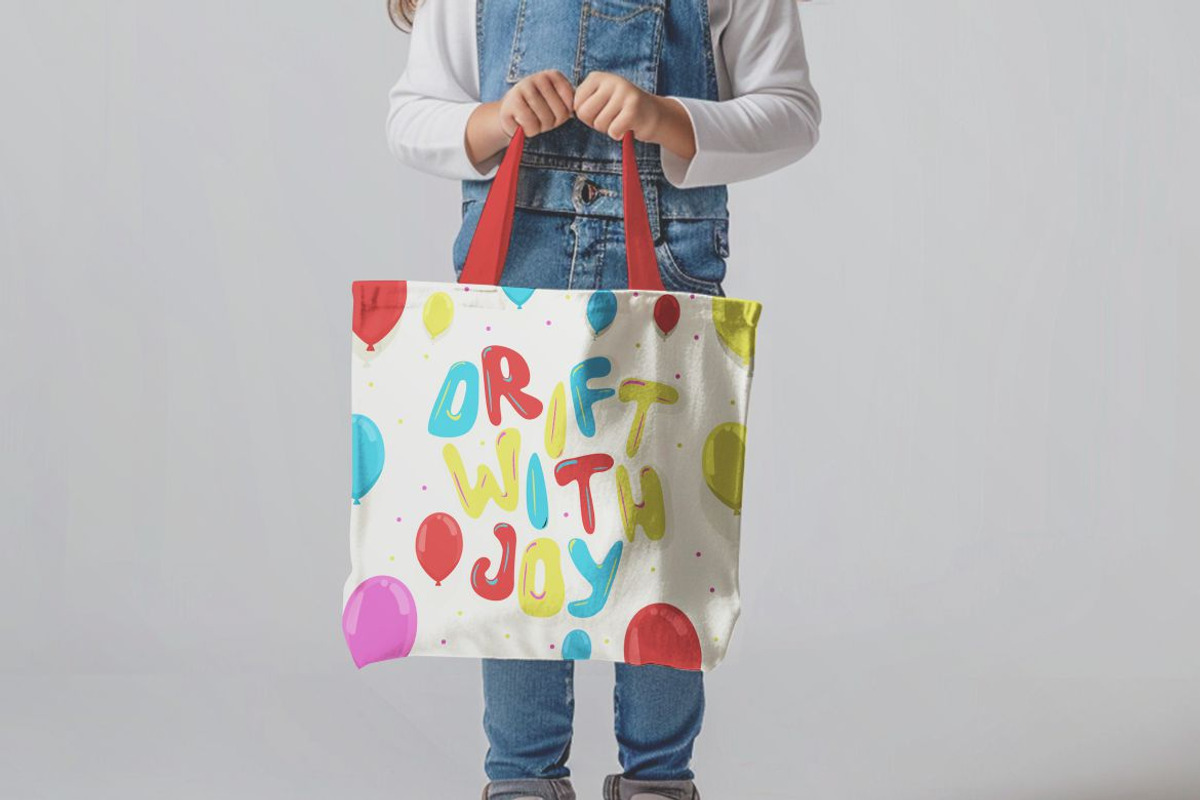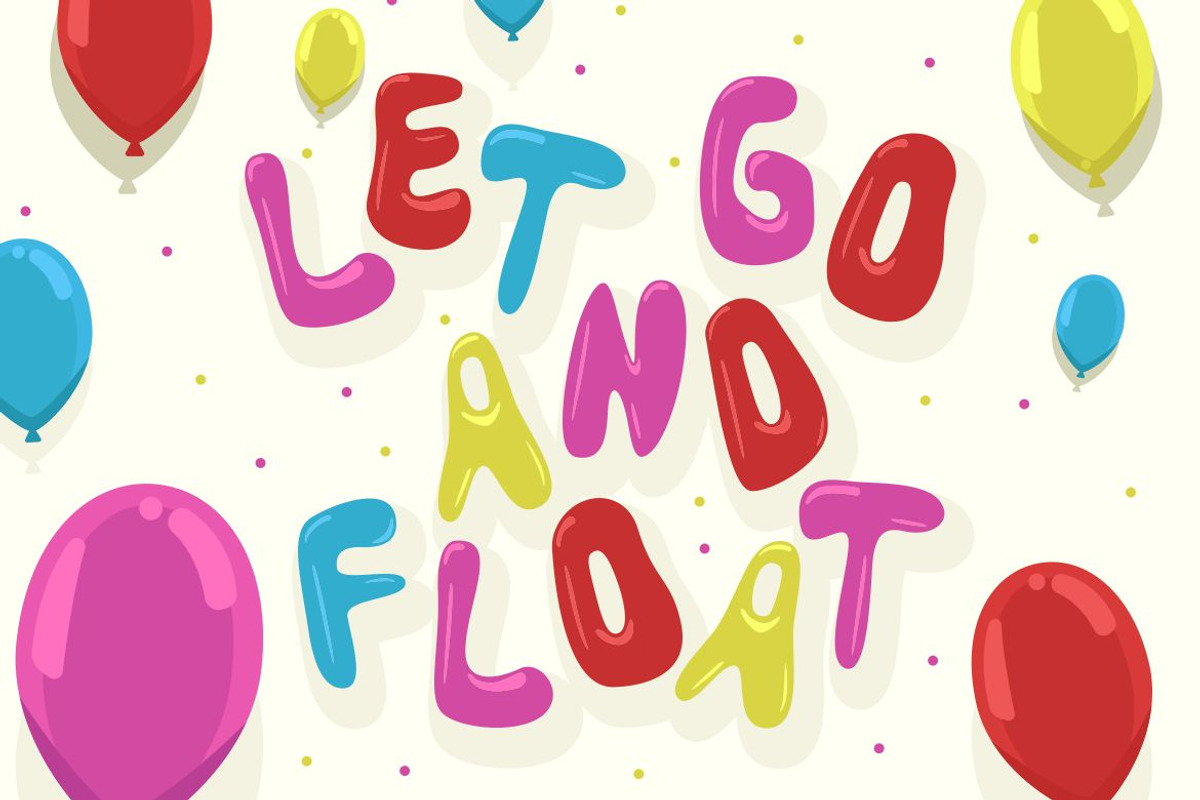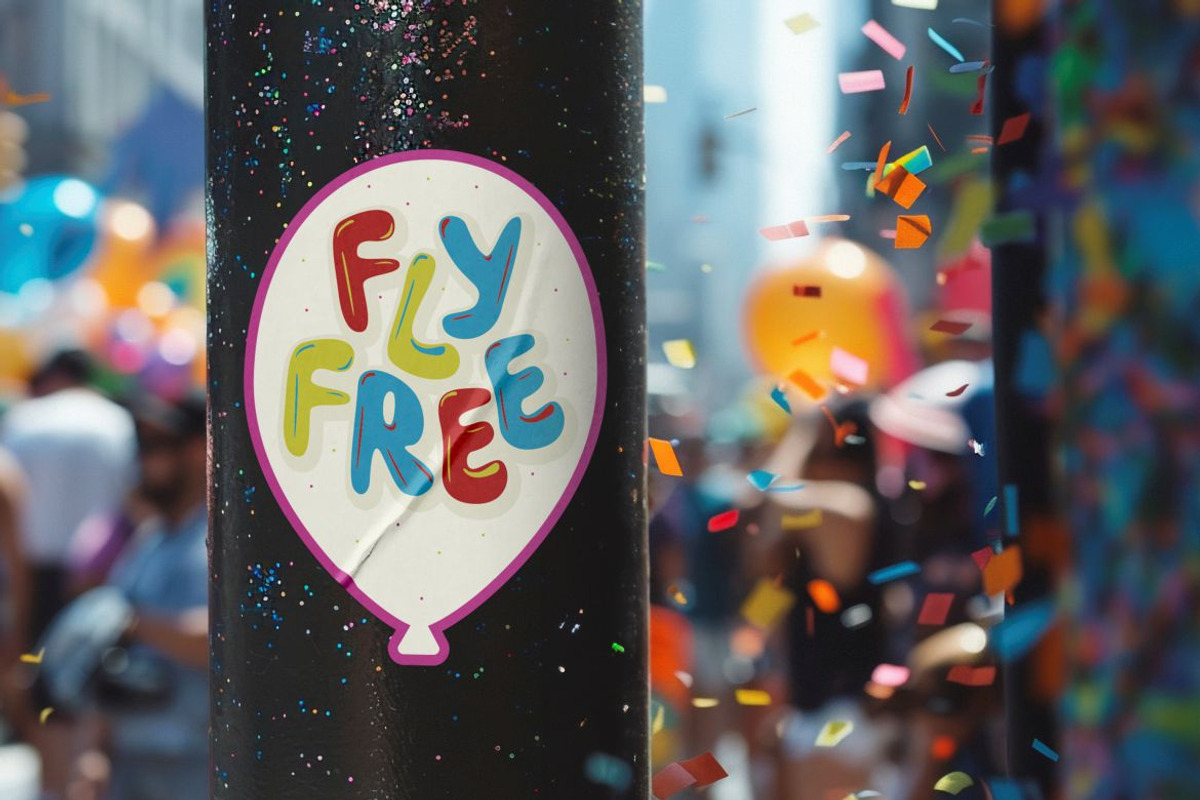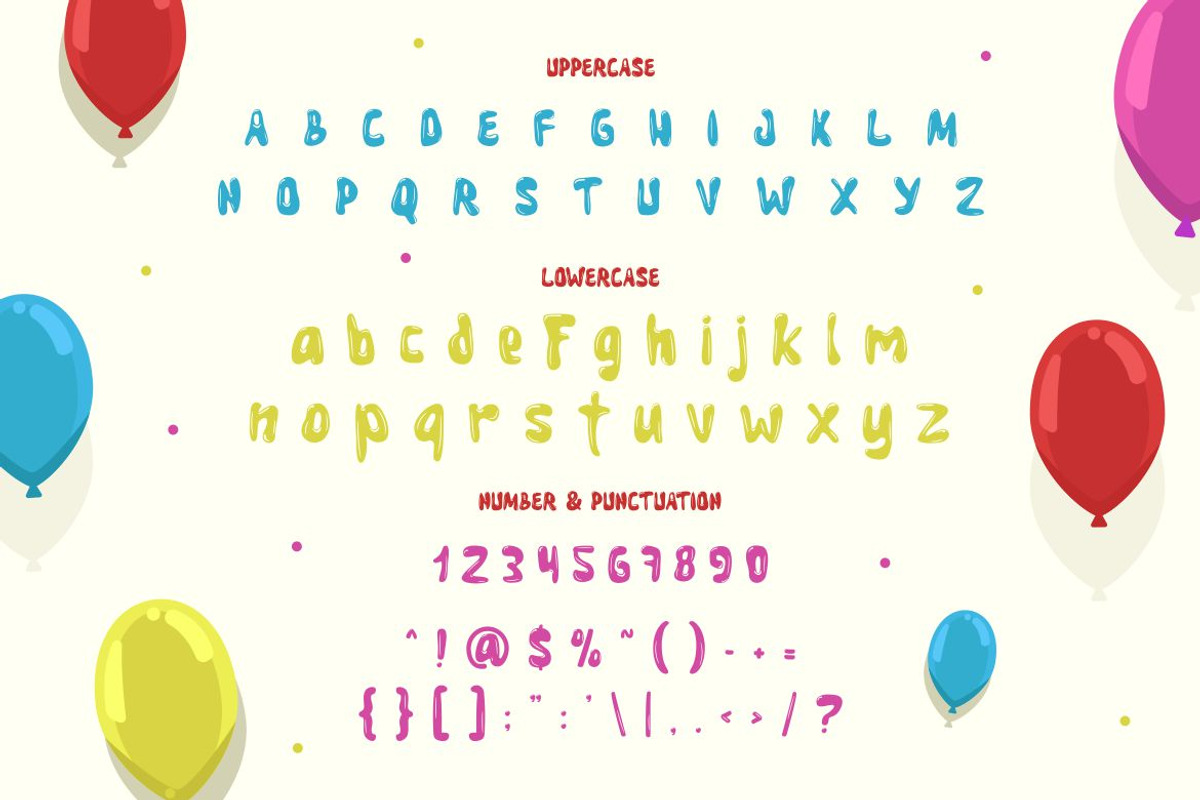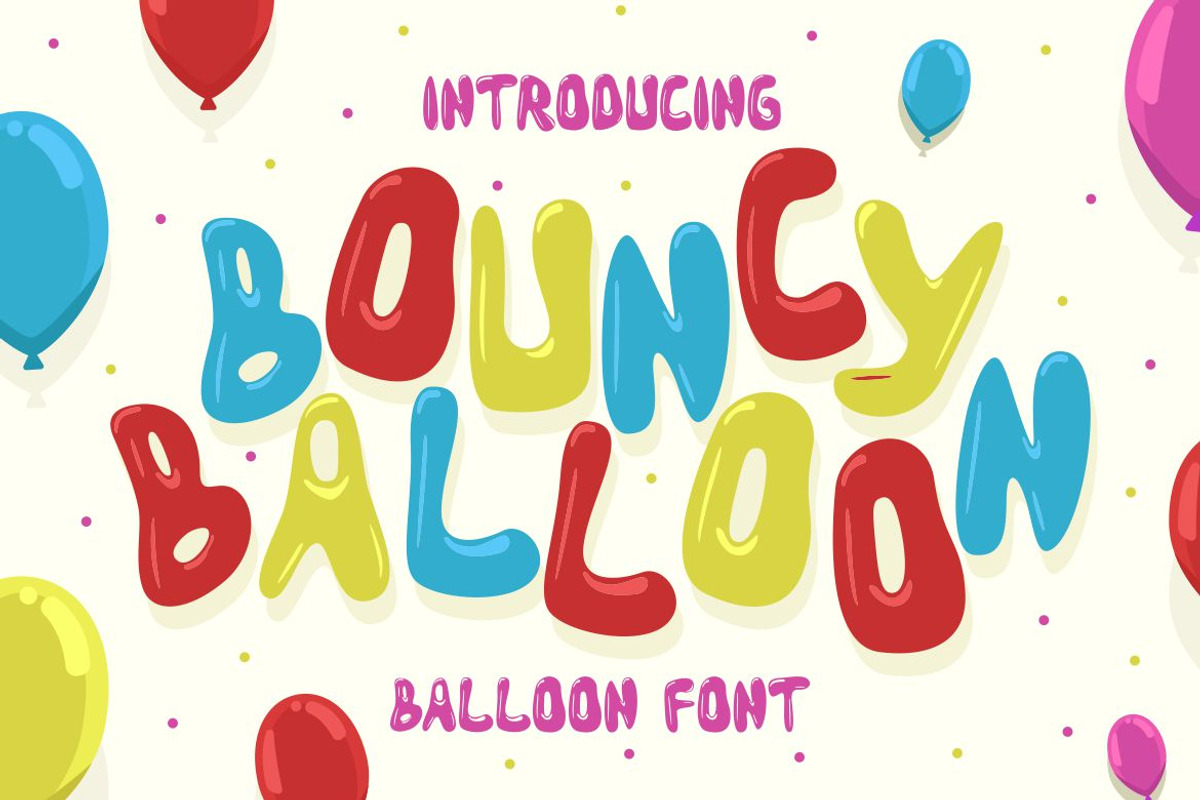
Bouncy Balloon - Balloon Font
Introducing Bouncy Balloon - Balloon Font, a fun, playful, and colorful typeface designed to bring joy to your creative projects! This font mimics the look of real balloons, featuring a glossy, inflated appearance with rounded edges and subtle highlights that add a three-dimensional effect. The mix of vibrant colors—red, blue, and yellow—creates an energetic and festive vibe, perfect for projects that need a cheerful touch. The background is light cream with scattered confetti and floating balloons, reinforcing the lively, party-like atmosphere. The smooth curves and bouncy shapes of the letters make this font ideal for kid-friendly, playful, and celebratory designs.
Perfect for party invitations, children's books, greeting cards, birthday posters, and branding for fun, youthful businesses, Bouncy Balloon adds a delightful charm to any design. Whether you're creating eye-catching packaging, social media graphics, or fun merchandise, this font will make your designs pop—literally! Its unique balloon-inspired style ensures a friendly, happy, and engaging visual appeal, making it a must-have for designers who love playful and creative typography